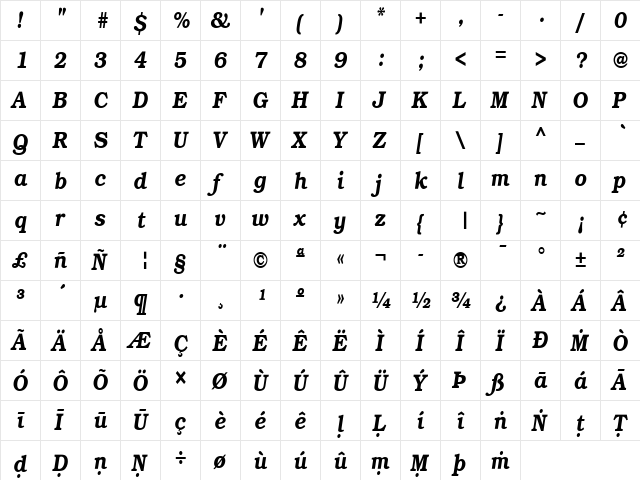
Pali Bookman Cond Regular
Design Context for Pali Bookman Cond Typeface
Pali Bookman Cond takes a measured approach to typography — its balanced proportions and neutral character make it a reliable workhorse for both digital and print work. The condensed width makes it efficient for tight spaces without sacrificing legibility.